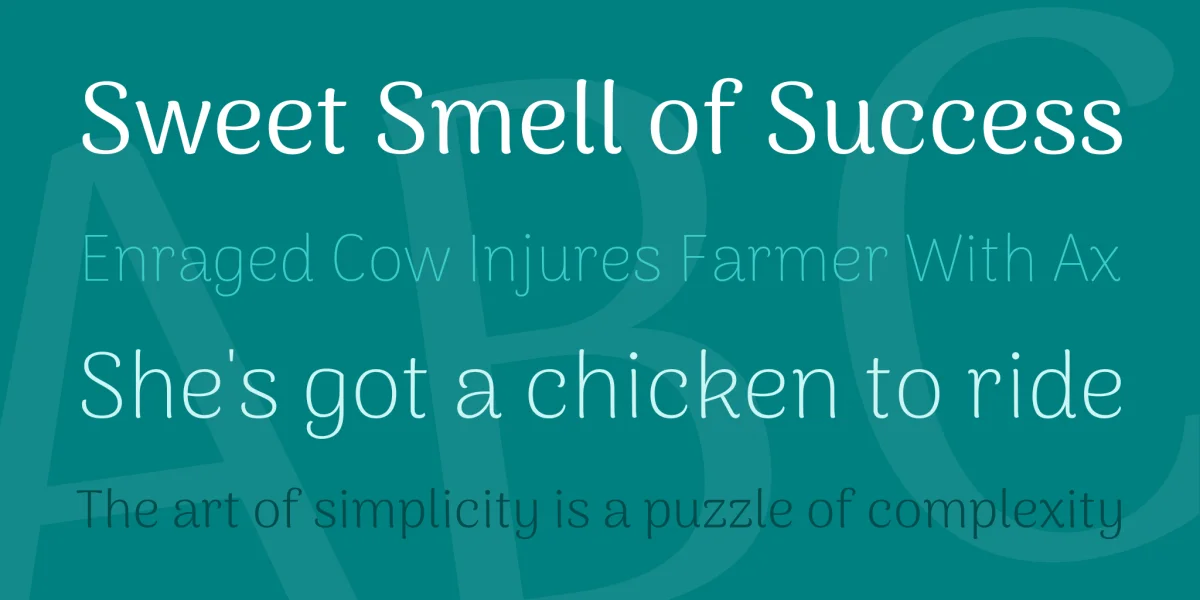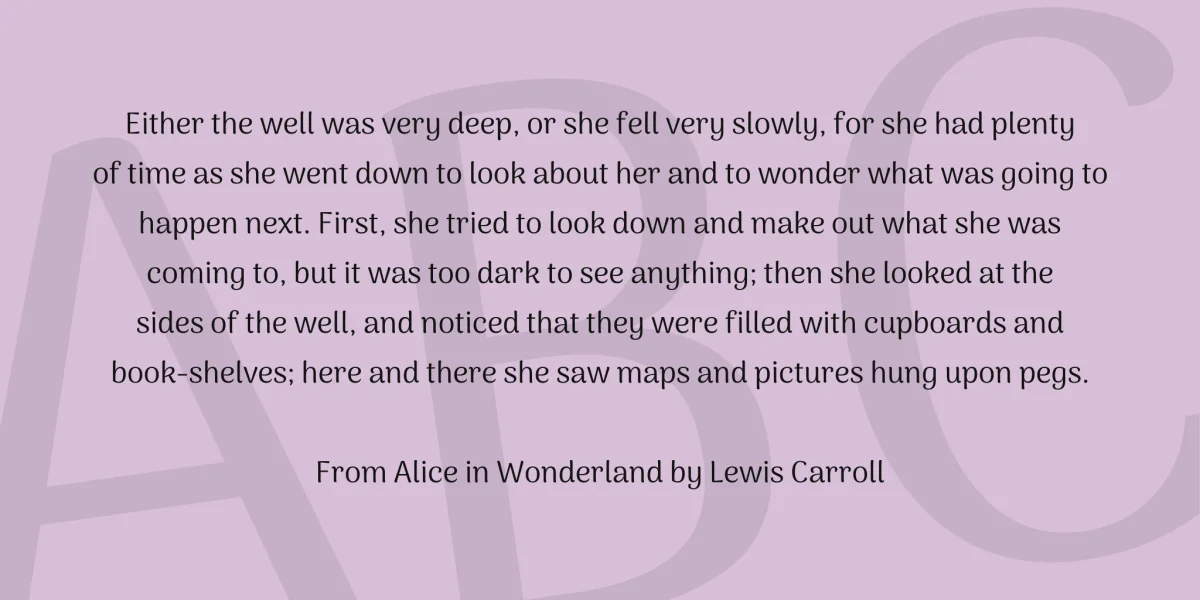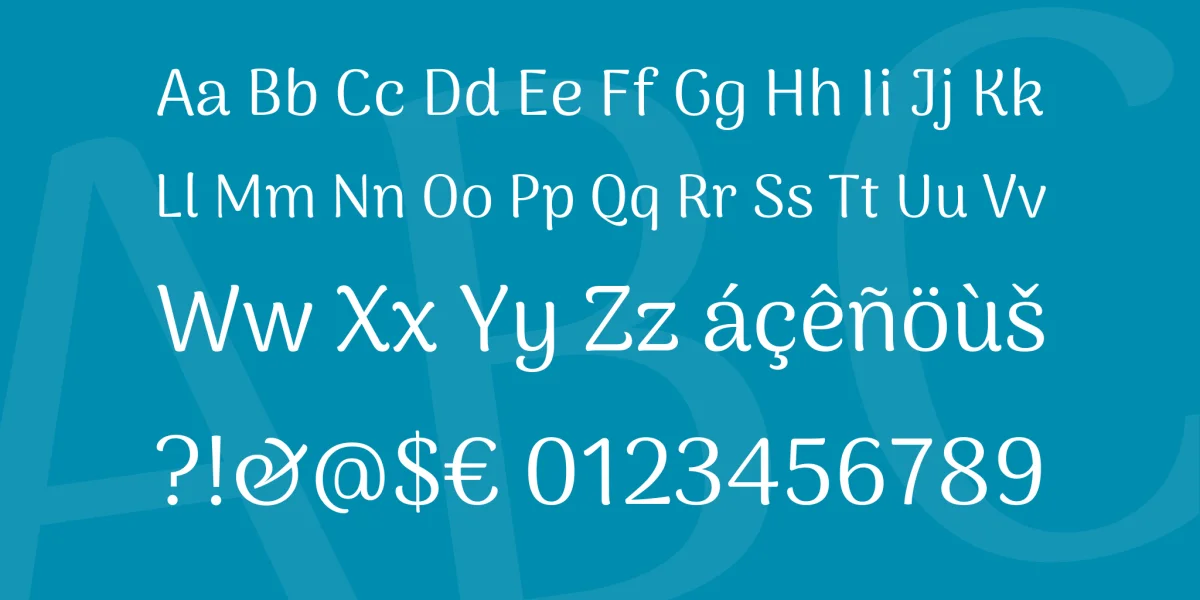
A display font with soft edges and calligraphic feel is the main inspiration for Arima project.
It has a low contrast to allow good rendering on screen. Legibility is always a central concern, but the design has a lot of personality to be recognizable as a display font to be used in headlines, brand names, and similar uses on the web. The primary goal was to create a design that will prove popular because it resonates with both casual and professional designers, and without ever lowering the quality of the design. Each font in the family was extensively tested on low resolution phones and refined to work well as a web font in the mobile era. From the very first round of design testing, each font was hinted with ttfautohint and refined for Windows users.
Arima Madurai has an extended language support for the Tamil and Latin scripts.